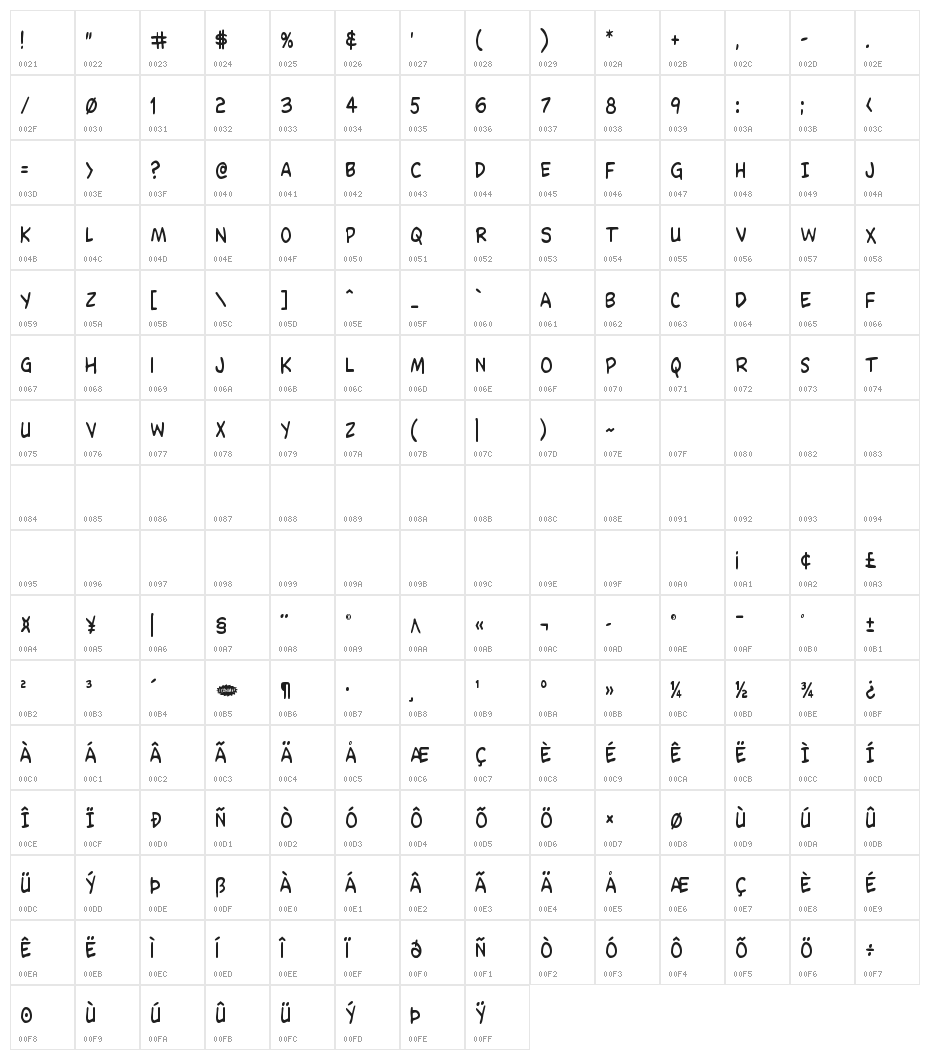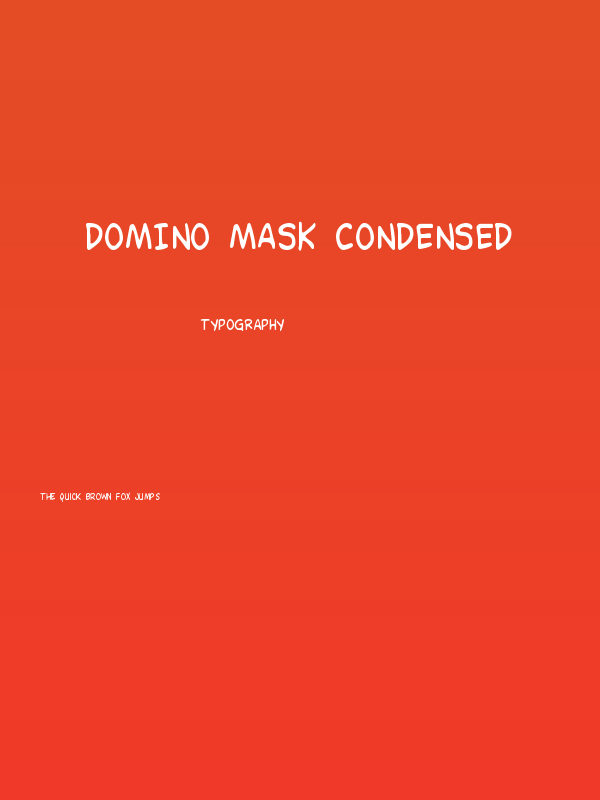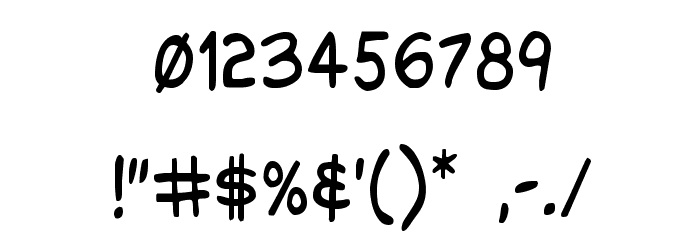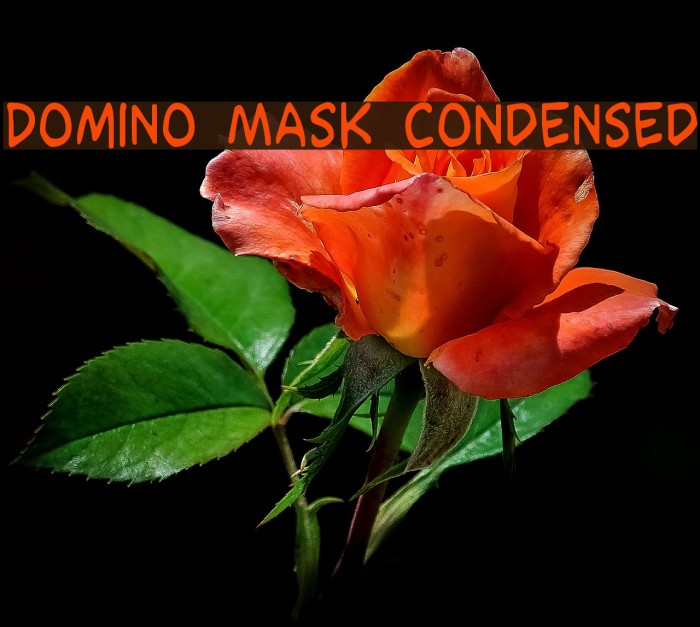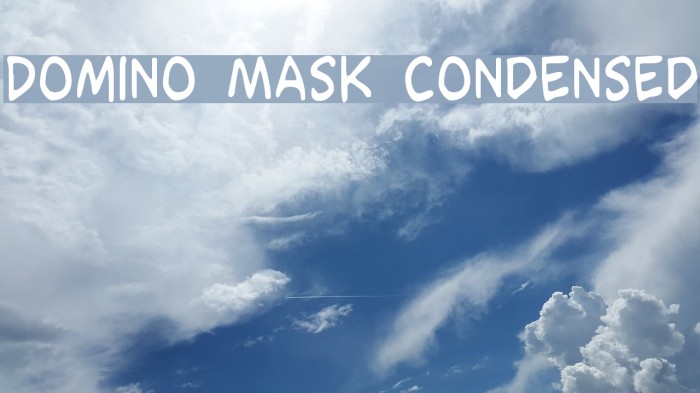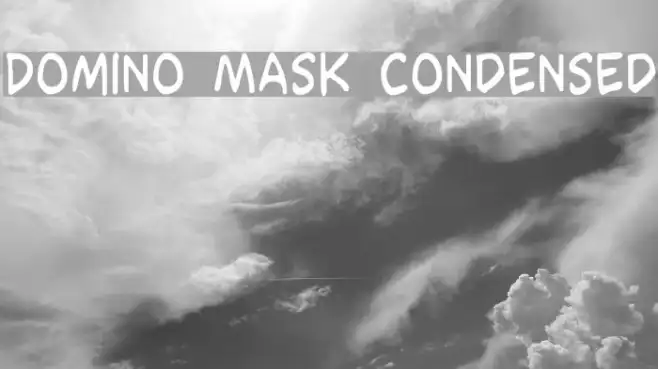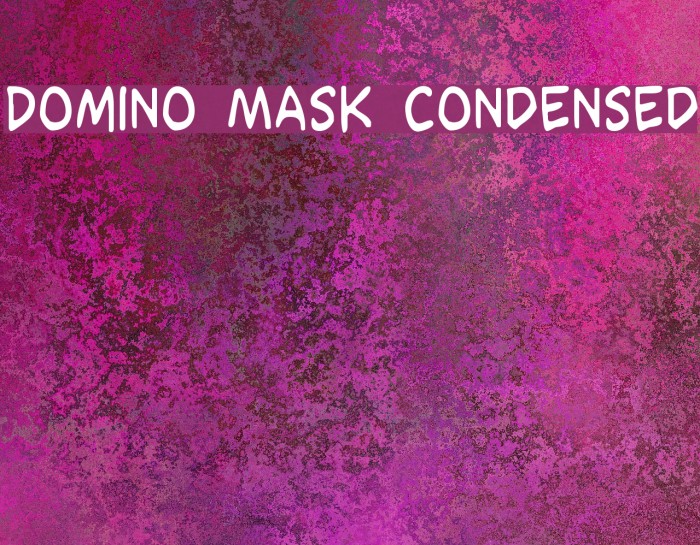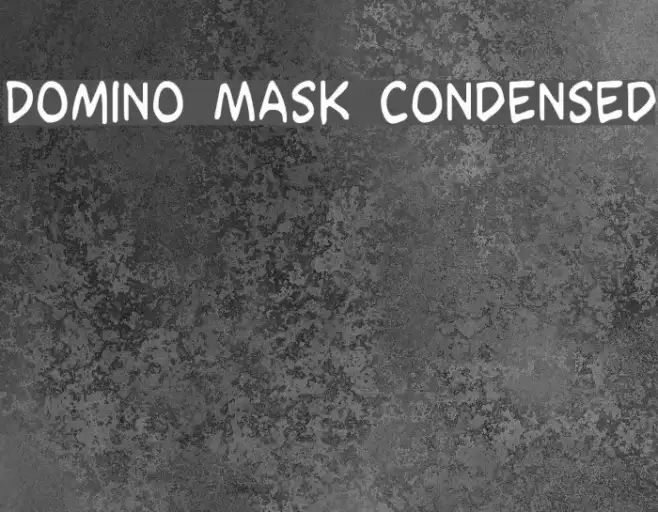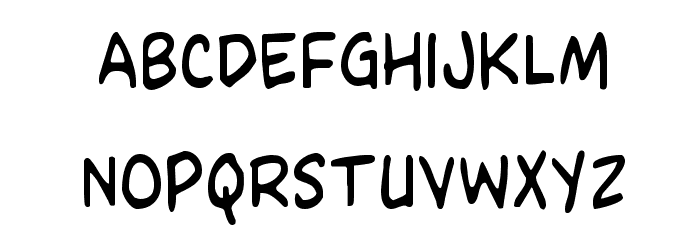
Domino Mask Condensed Font
Domino Mask Condensed Description
This font features a playful and informal style with rounded edges and a handwritten appearance. The characters are slightly condensed, giving it a compact look while maintaining readability. The strokes are consistent in thickness, providing a uniform appearance across all characters. The font includes both uppercase and lowercase letters, numerals, and a variety of special characters, making it versatile for different uses. Its casual and friendly design makes it suitable for projects that require a personal touch.
| Proposed Projects | Ideal for children's books, greeting cards, playful branding, and informal invitations. |